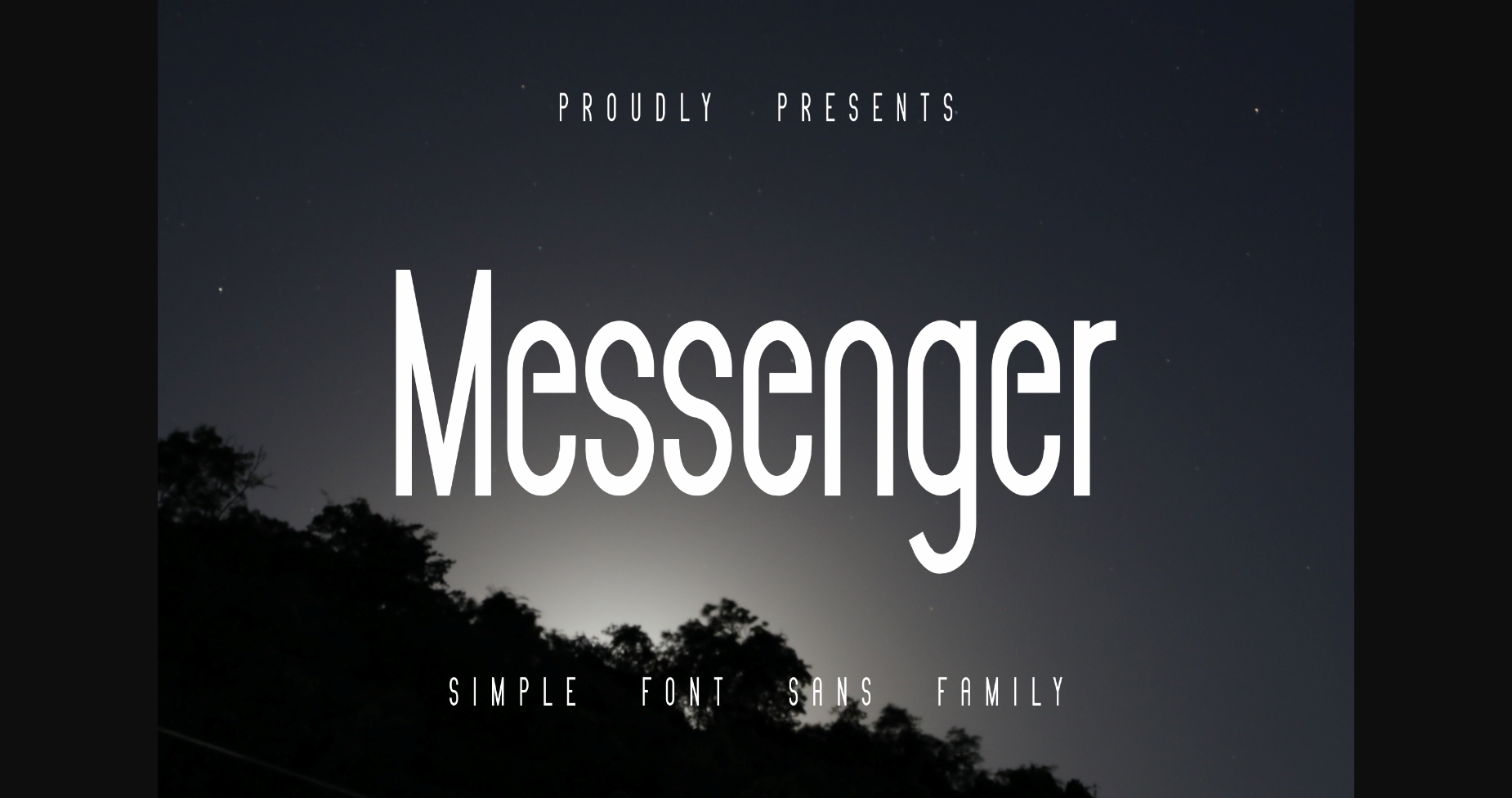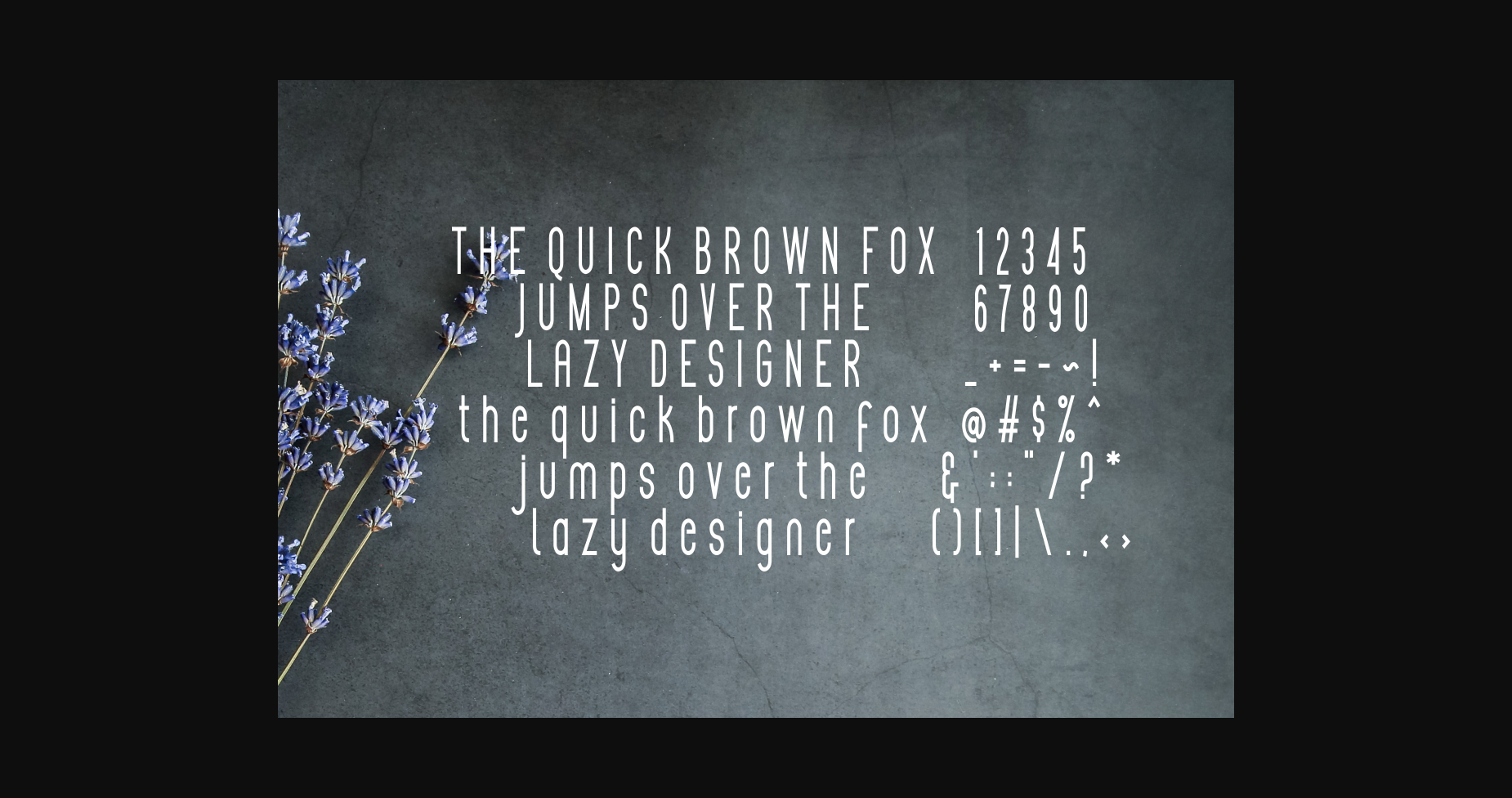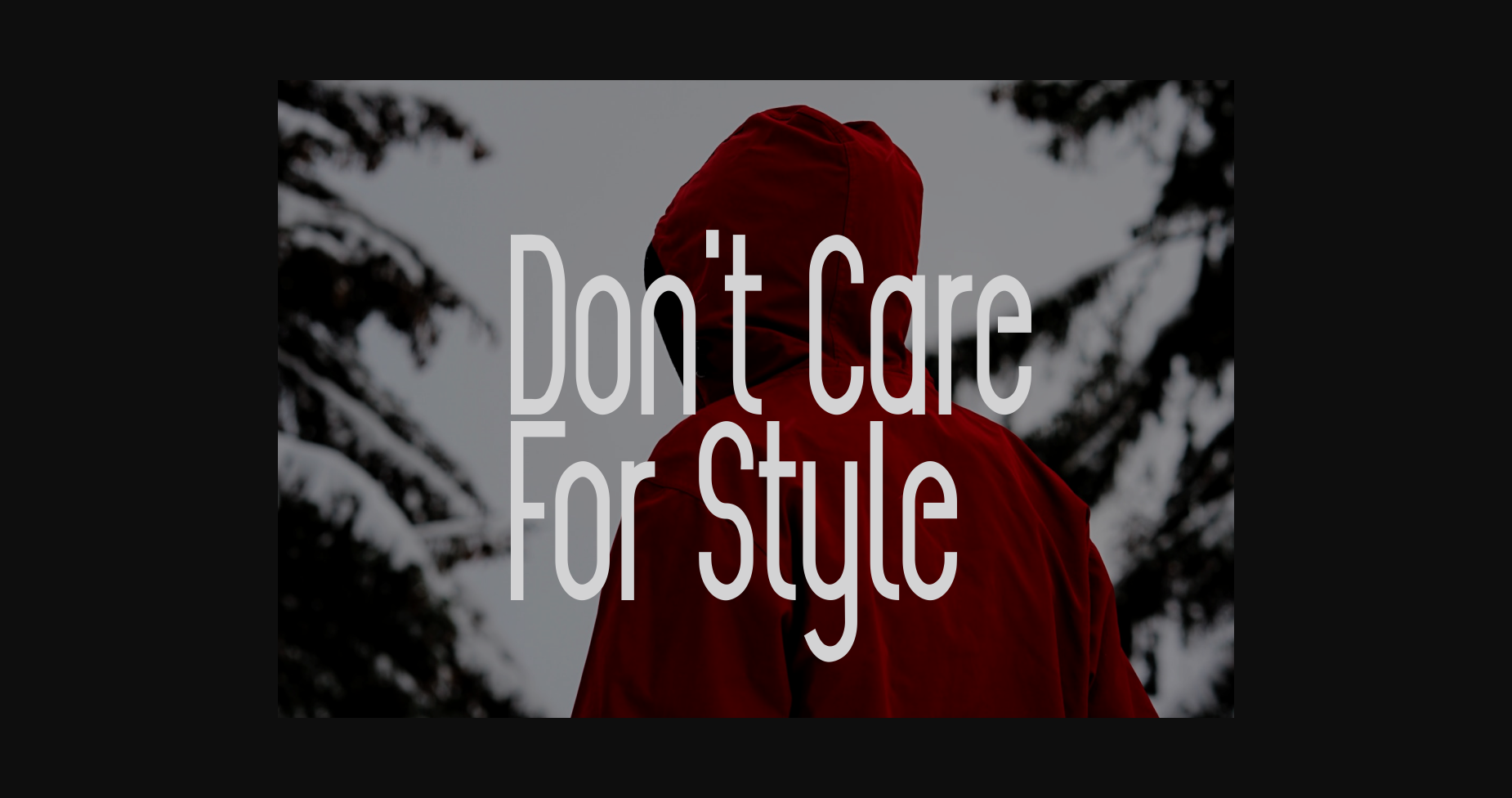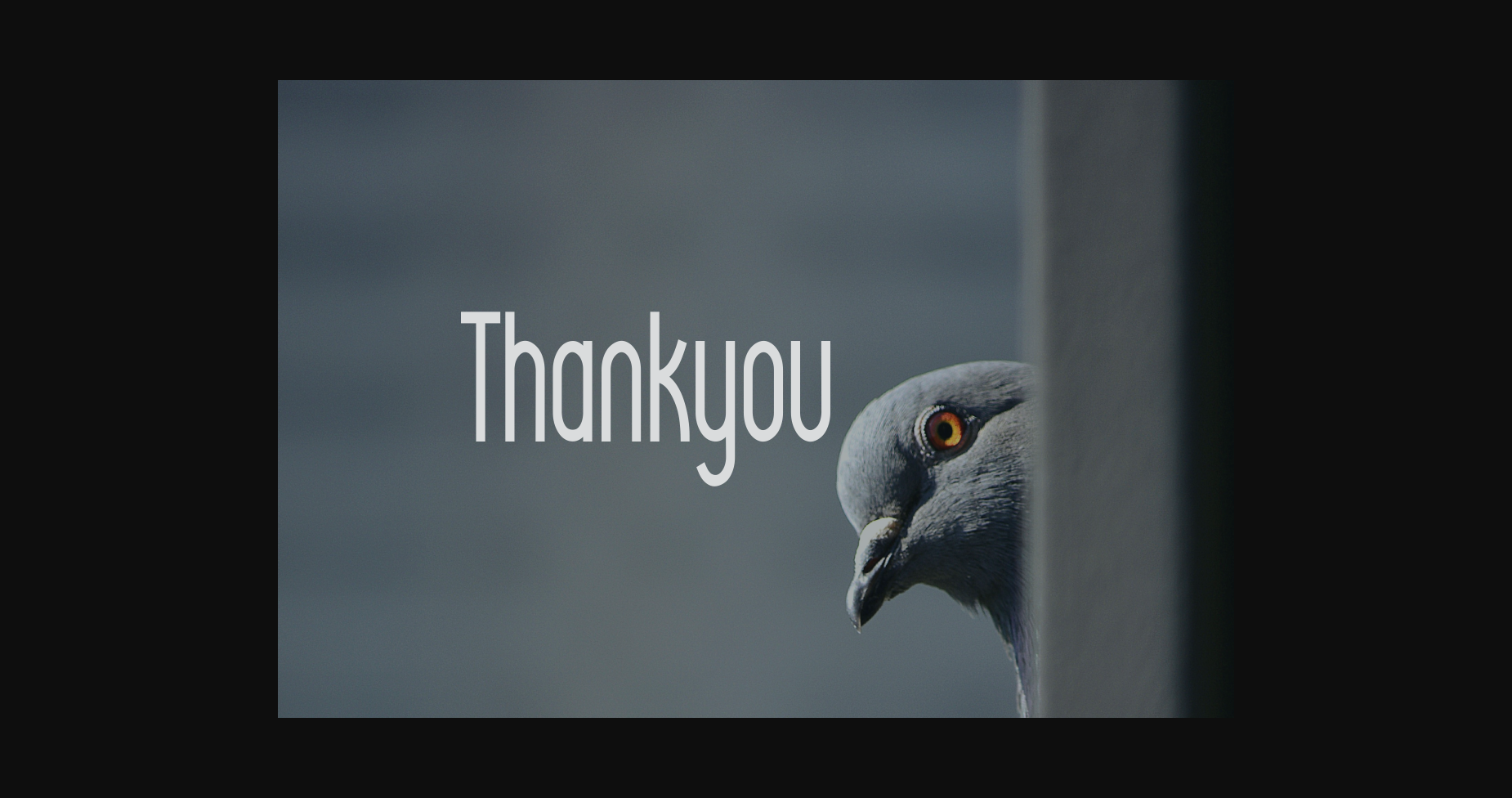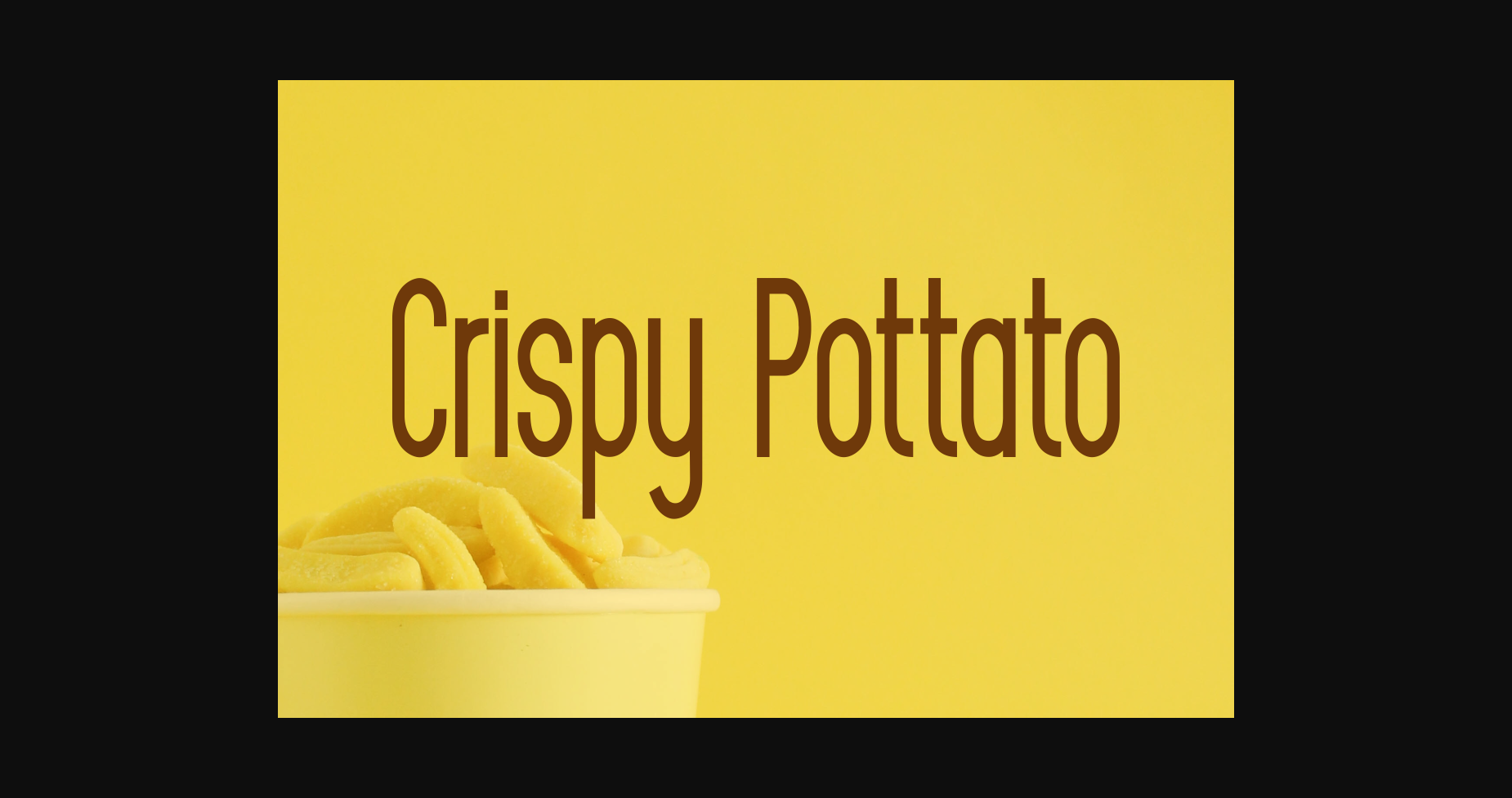
HomeSans Serif FontsMessenger Font Sans Serif Fonts Messenger Font FacebookXPinterestWhatsApp 1 of 7 ... Messenger Font Poster 2... Messenger Font Poster 3... Messenger Font Poster 4... Messenger Font Poster 5... Messenger Font Poster 6... Messenger Font Poster 7... About Messenger Font Messenger is a cool and modern sans serif font. It has beautiful and well-balanced characters and as a result, it matches a wide pool of designs. DOWNLOAD NOW People also explored Holiday Sweghand Font Mini Heart Font Rigel Font Chickweed Miguella Font Jatukiy Font Anjany Font The Winter Font 526 0 TagsMessenger Font Previous articleVoppexa FontNext articleUniqloves Font LEAVE A REPLY Cancel reply Comment: Please enter your comment! Name:* Please enter your name here Email:* You have entered an incorrect email address! Please enter your email address here Website: Save my name, email, and website in this browser for the next time I comment. Personal Use Free Pretender Personal Use Free Read more about this font Groomer Personal Use Free Read more about this font Vanchrome Personal Use Free Read more about this font Saolice Personal Use Free Read more about this font BLOG Elegant Wedding Invitation Fonts – Handwritten & Script Fonts Elegant Wedding Invitation Fonts Your wedding day is one of the most important moments of your life, and every detail matters—including your invitation design. Our... Exploring Font Trends Top 7 Google Fonts Alternatives for Faster and Privacy-Friendly Web Design (2025) Best Fonts for YouTube Videos: Make Your Thumbnails Stand Out